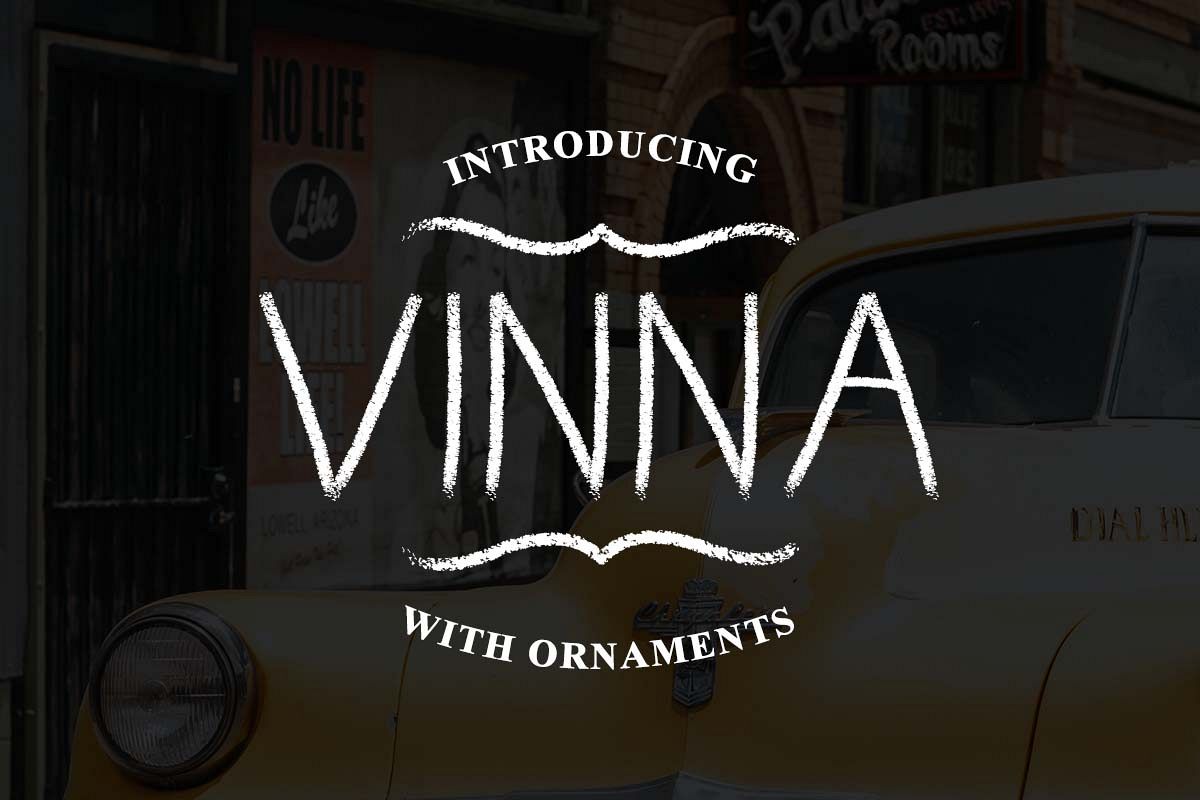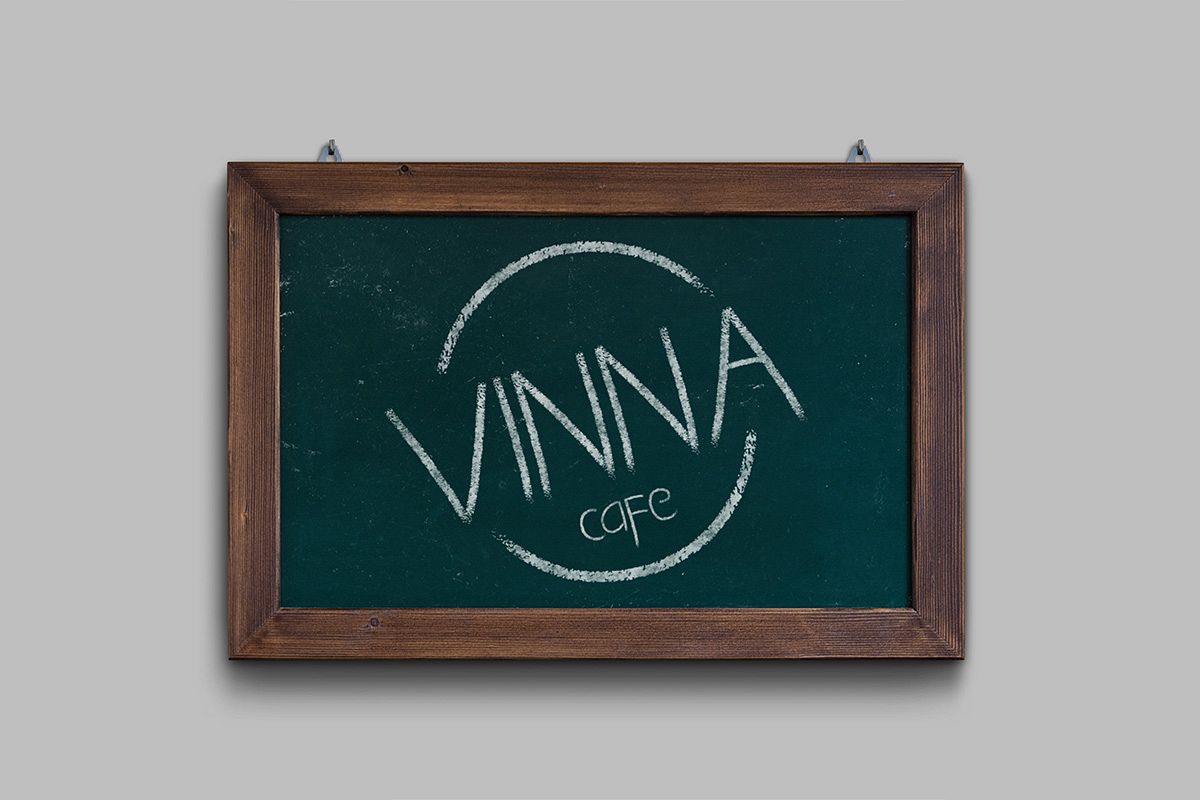
Vinna - Chalk font
Vinna Chalk
Introducing the new VINNA handwritten font with a chalk effect.
A brand new typeface perfect for any project related to school, restaurants, bars, background photoboots wedding, t-shirt, posters,  & pubs and many other.
It is carefully crafted for a classic clean look and legibly.
It is classically elegant and so fast to create a design with. Literally made an entire set of social media posts for a client within 10 minutes.